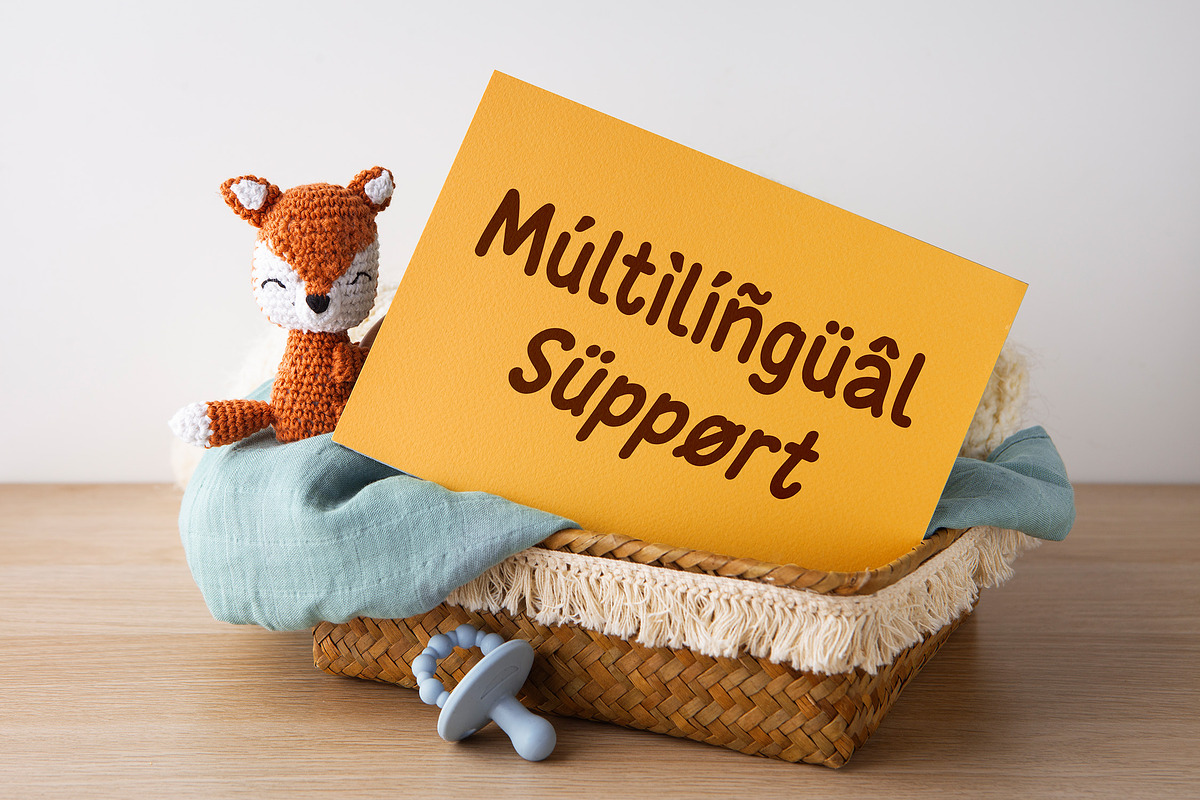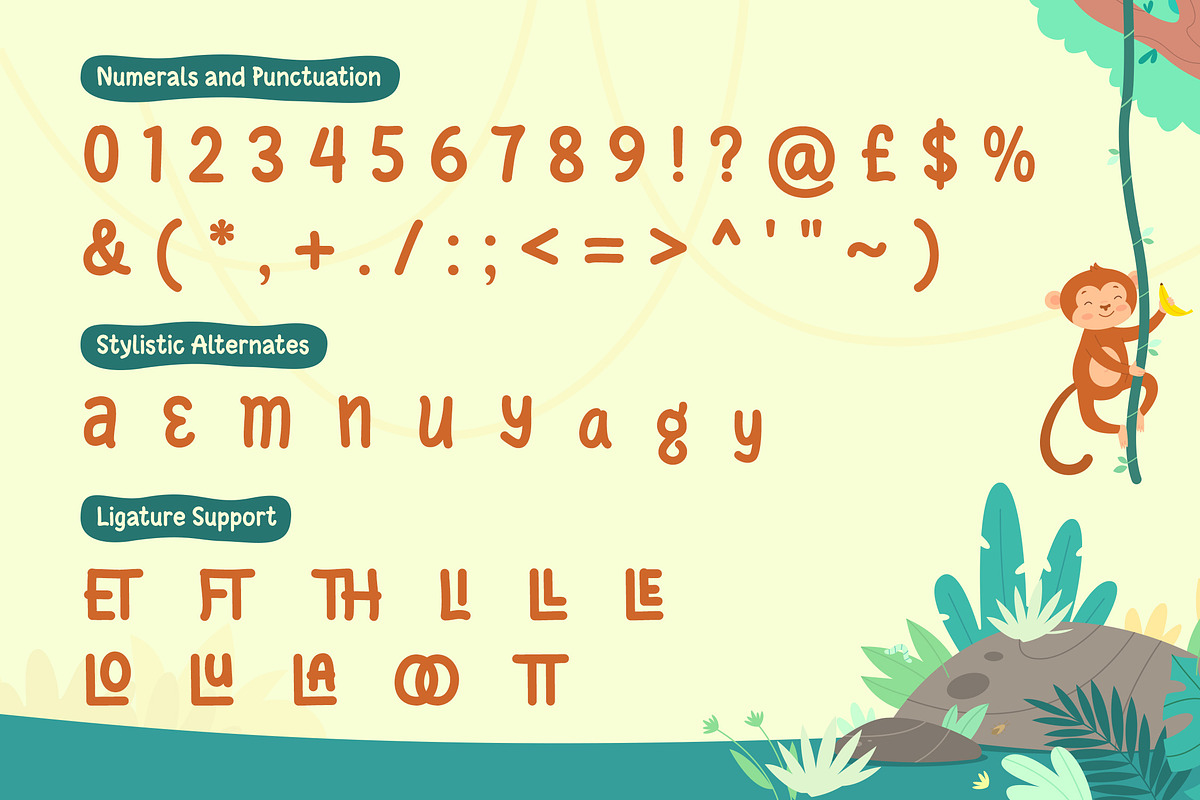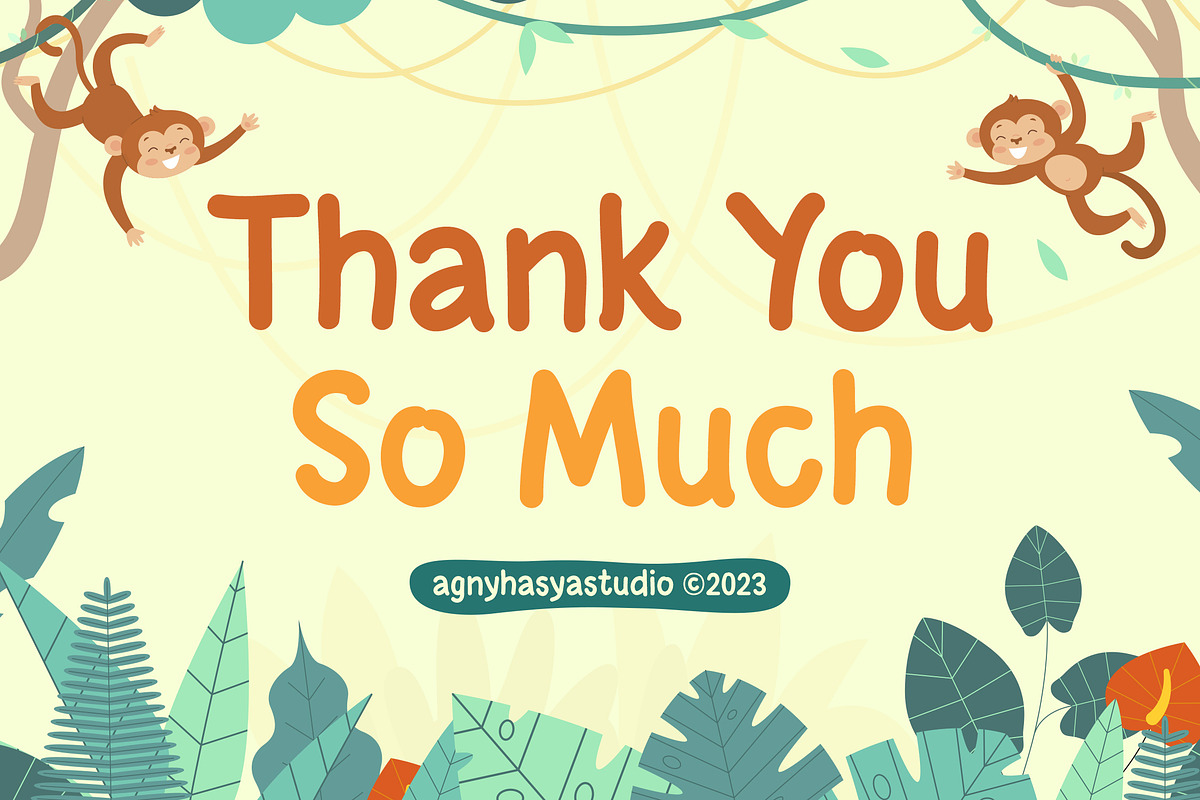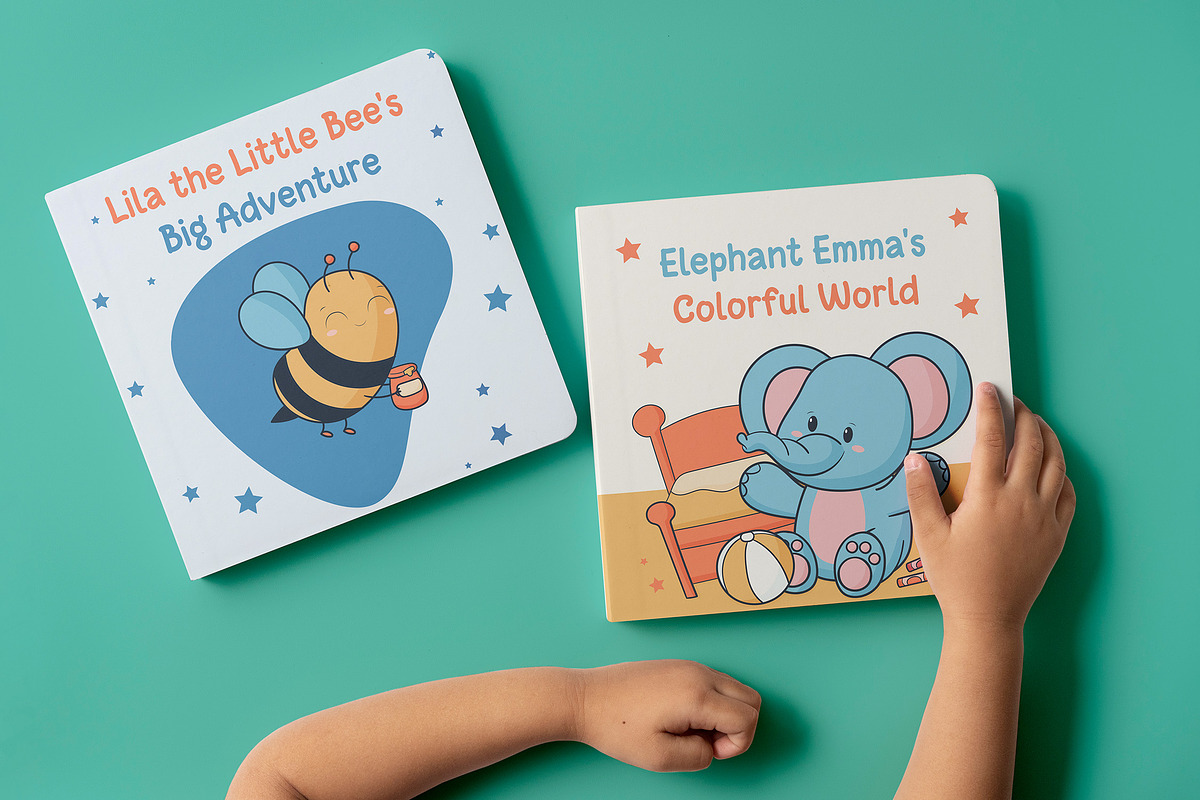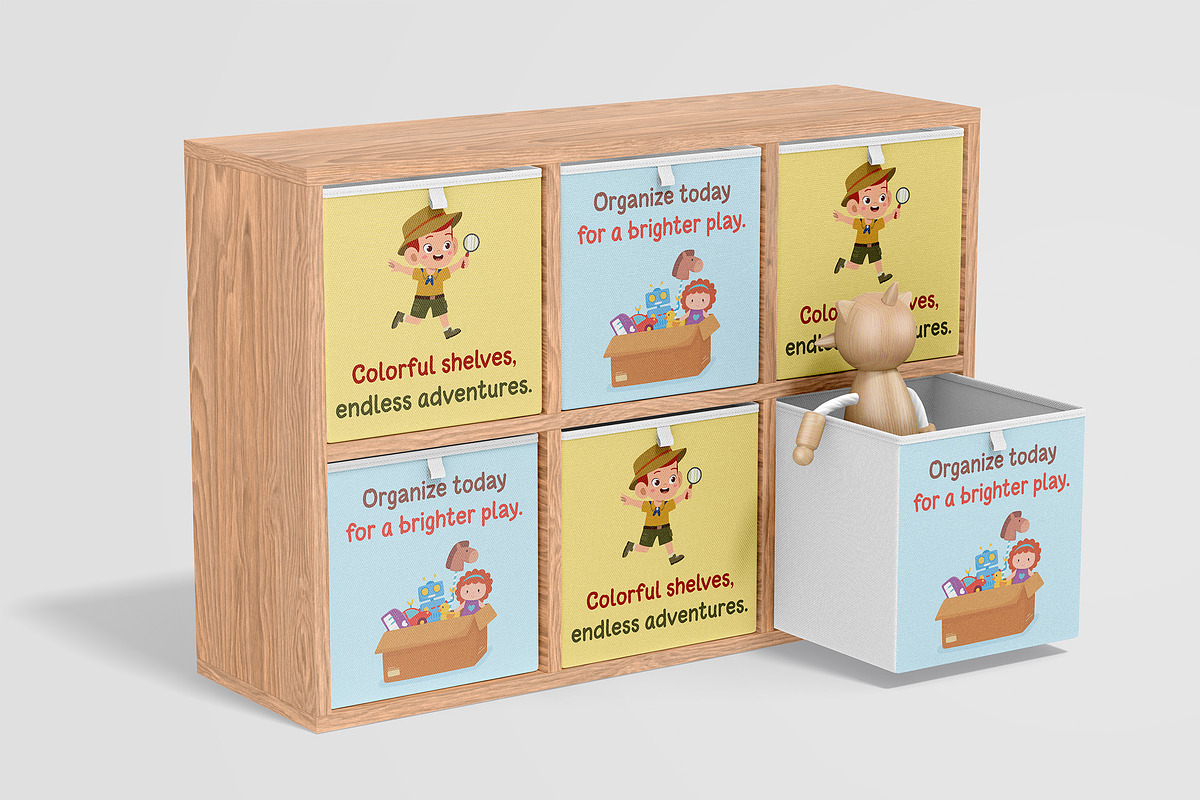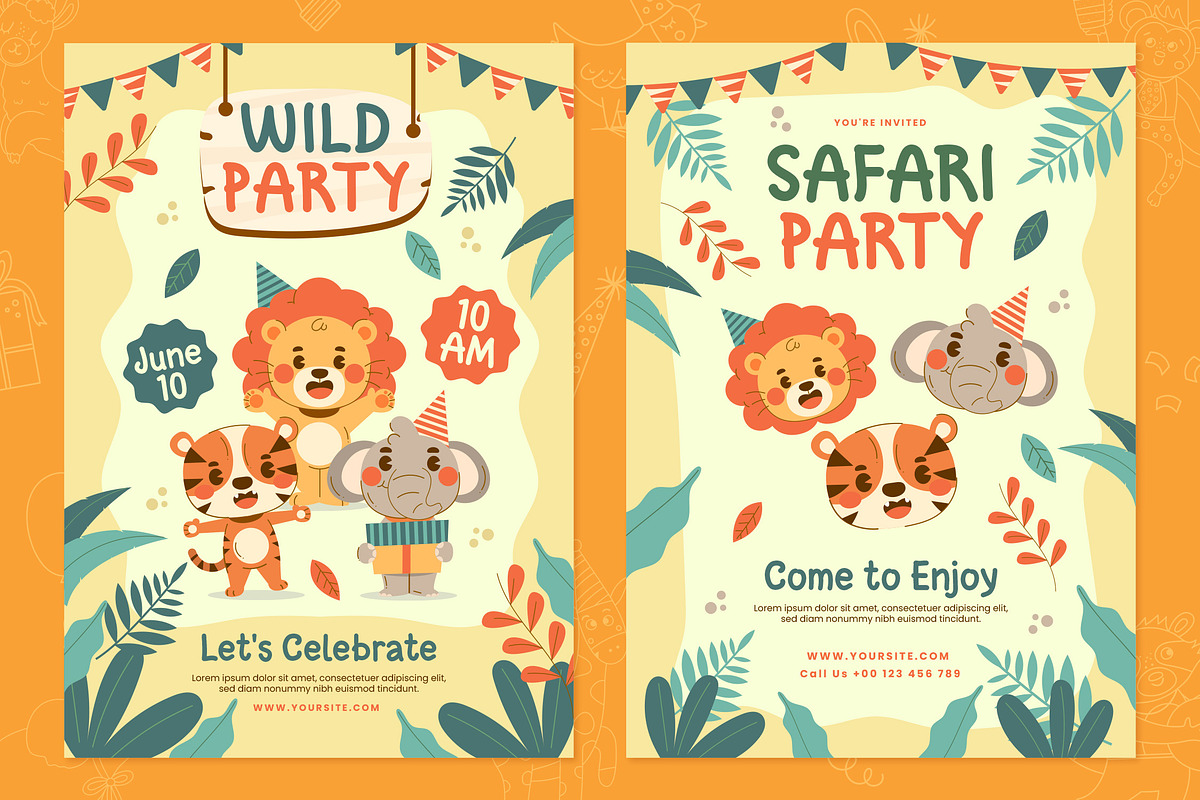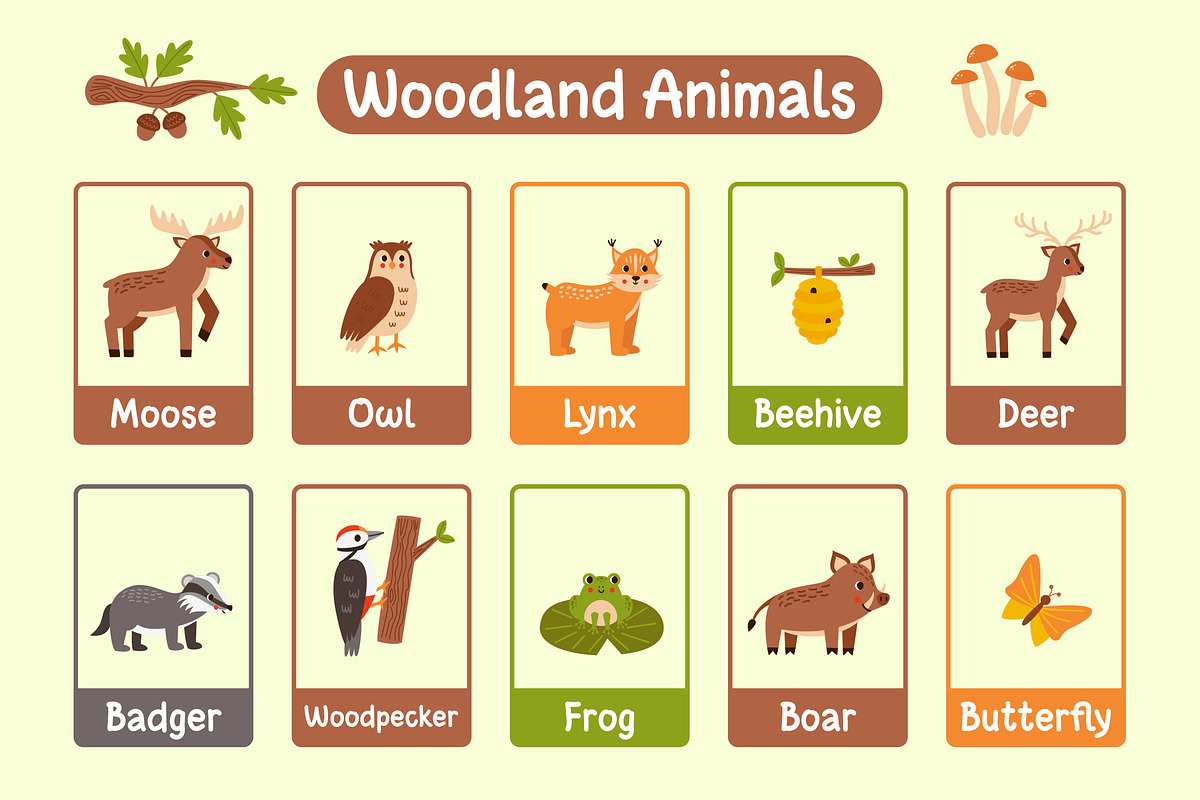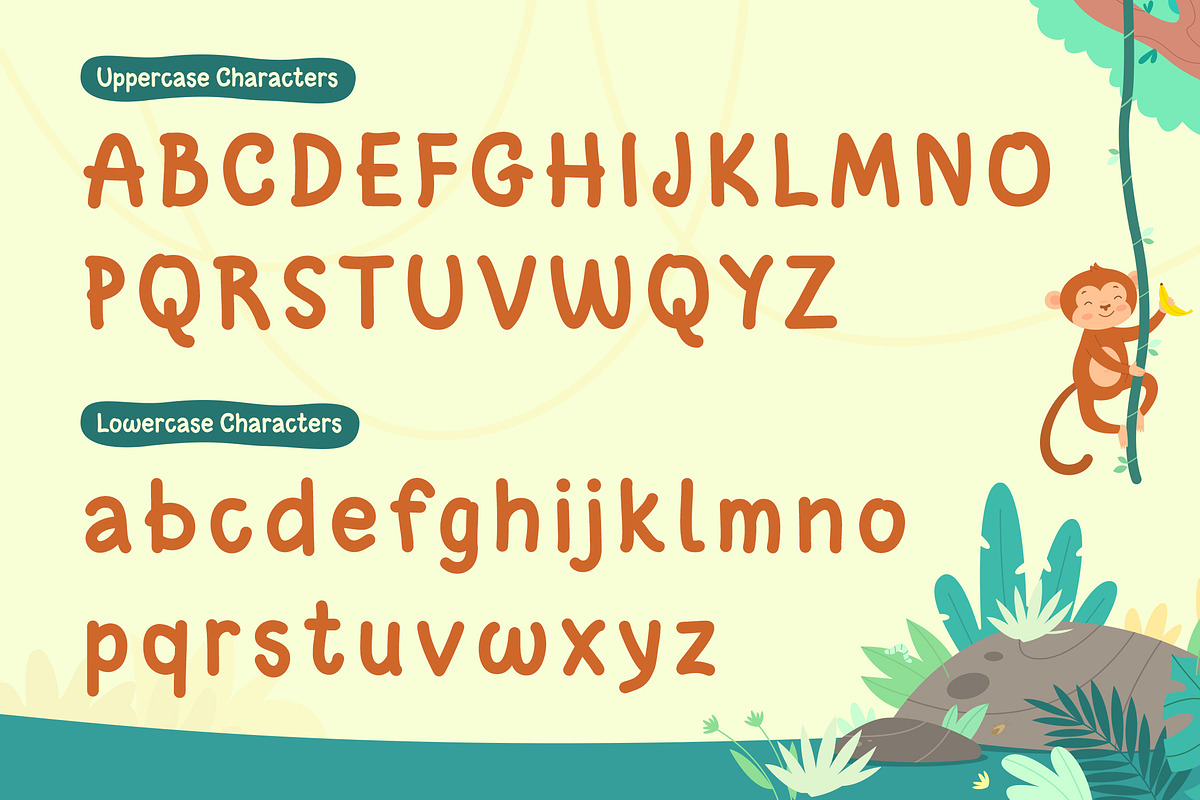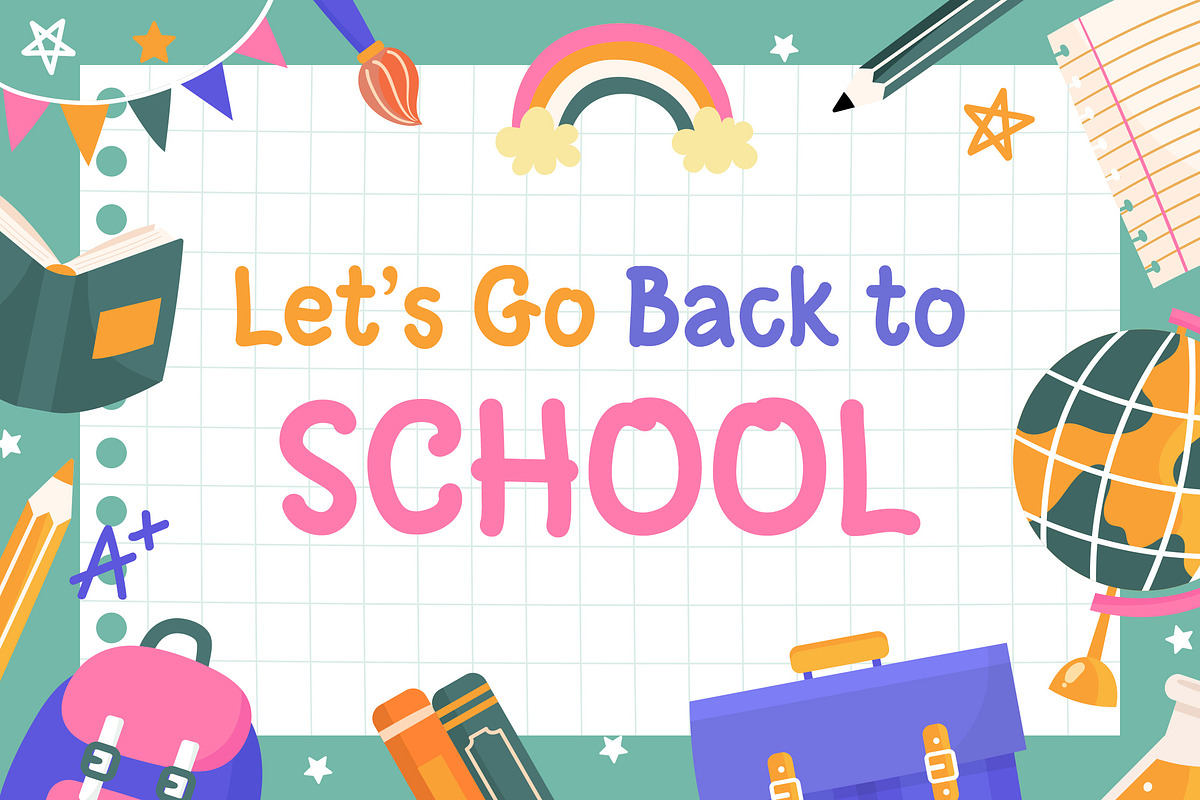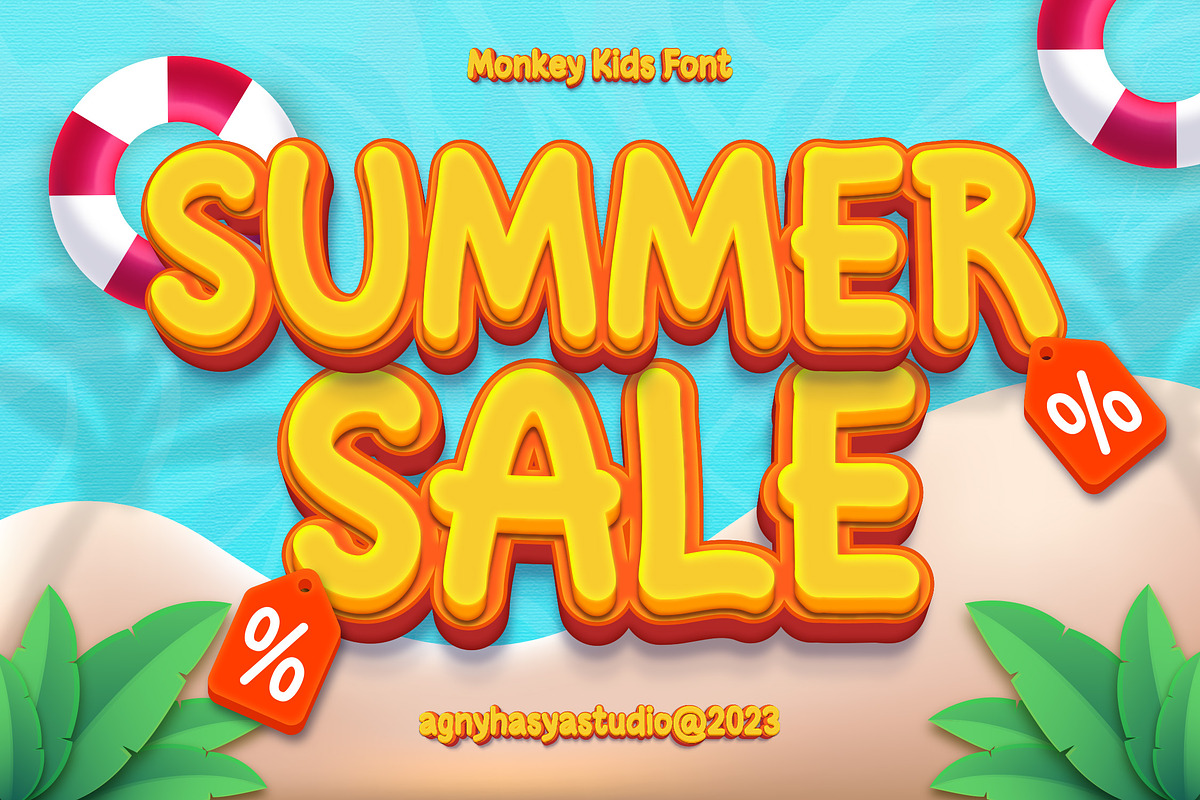
Monkey Kids - A Playful Font
Proudly Present Monkey Kids - A Playful Font
Monkey Kids is a Playful, Fun, and Cute Typeface. Come in 2 (two) styles (regular & slant) and is created with some alternate and ligature. Perfect for your design projects like Children or School Projects, Branding, Advertising, Product Designs, Magazine Designs, Book/Cover Title Designs, Art Quotes, Special Events, Labels, Product Packaging, and more.